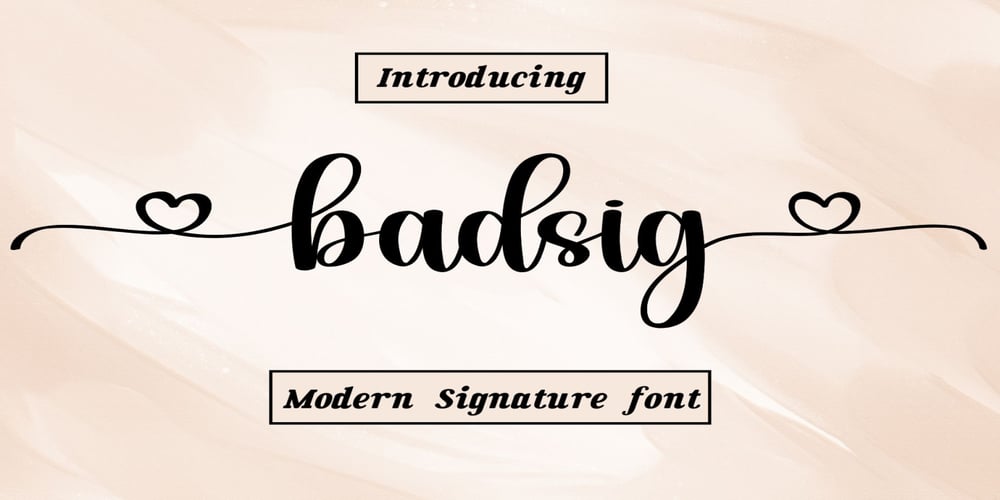
Badsig Font Family was designed by David Nalle and published by Dream Font. Badsig contains 1 styles and family package options. Badsig is a delicate, elegant, and flowing handwritten font perfect for your favorite projects. Fall in love with its incredibly distinct and timeless style, and use it to create spectacular designs! This font is PUA encoded, which means you can access all of the glyphs and swashes with ease!